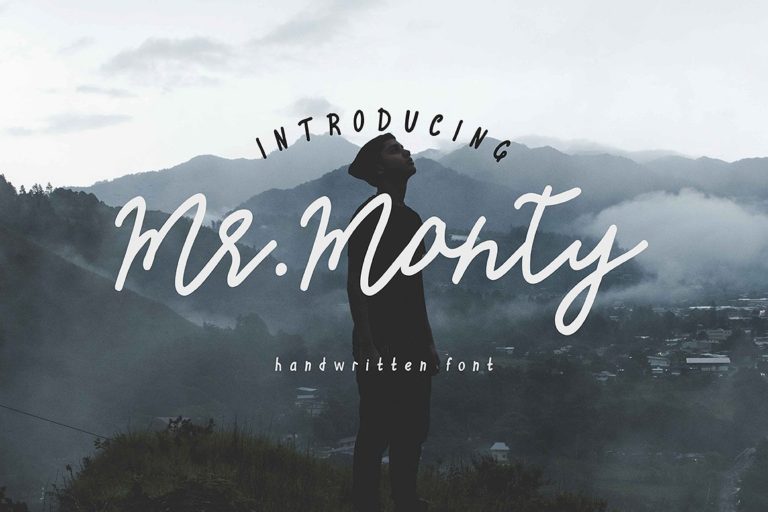
Mr.Monty Handwritten Font
Hello friend. A design of Mr.Typeman. Introducing Mr.Monty Font. Mr.Monty will help you to decorate any of your projects in a nice attractive style. It’s a perfect choice for your design needs! Mr.Monty comes with uppercase, lowercase, standard punctuation, numerals and special letters for most of the European languages.